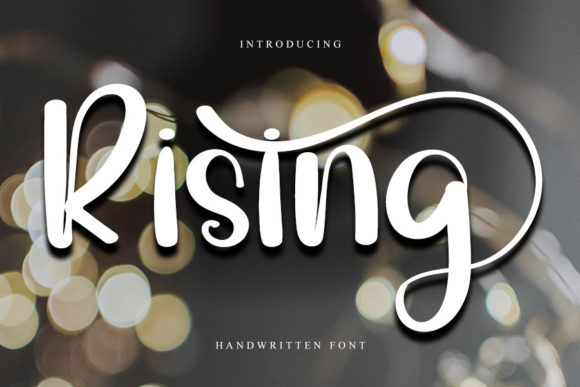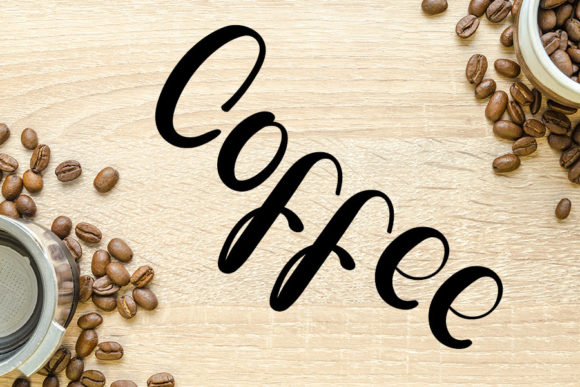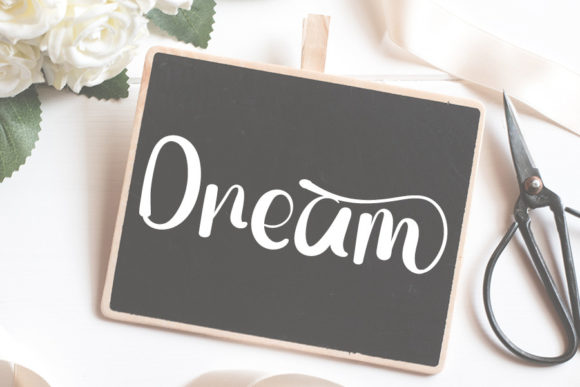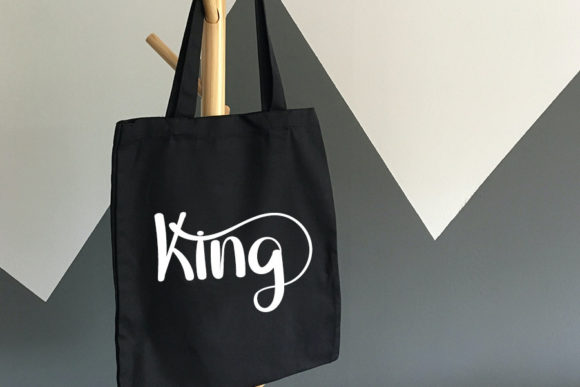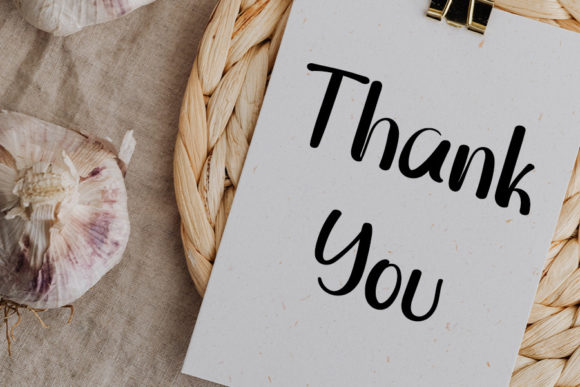
Rising Font
About Rising Font
Rising is a font that captures the essence of timeless elegance and contemporary flair. With its stylish handwritten design, it brings a sense of sophistication and charm to your projects. The carefully crafted strokes exude a sense of impeccable form, reflecting the artistry of classic calligraphy while maintaining a modern edge.
One of the standout features of Rising is its balance – it strikes the perfect equilibrium between thin and thick lines. This balance contributes to the font’s versatility, allowing it to shine in a multitude of contexts. Whether it’s used for logos, branding, invitations, or any creative endeavor, Rising adapts seamlessly to enhance the beauty of your work.
The font’s varied strokes add depth and character, infusing your projects with a dynamic and captivating quality. It’s not merely a font; it’s a visual experience that engages the viewer and draws them into your design.
Imagine Rising gracing the pages of a wedding invitation, the script dancing across the paper with a touch of contemporary allure. Envision it on a stylish product label, adding a touch of class to your brand. Picture it in a headline, captivating readers and leaving a lasting impression.
Rising goes beyond being just a font – it becomes an integral part of your design narrative, telling a story of elegance and creativity. Its timeless yet modern nature makes it a powerful tool in your design arsenal, capable of elevating your projects to new heights.
Whether you’re aiming for a sophisticated and refined look or a contemporary and fresh vibe, Rising has the versatility to deliver. Its impeccable form, balanced lines, and varied strokes combine to create a font that truly enhances the beauty of your projects, making them stand out in the most captivating and stylish way possible.